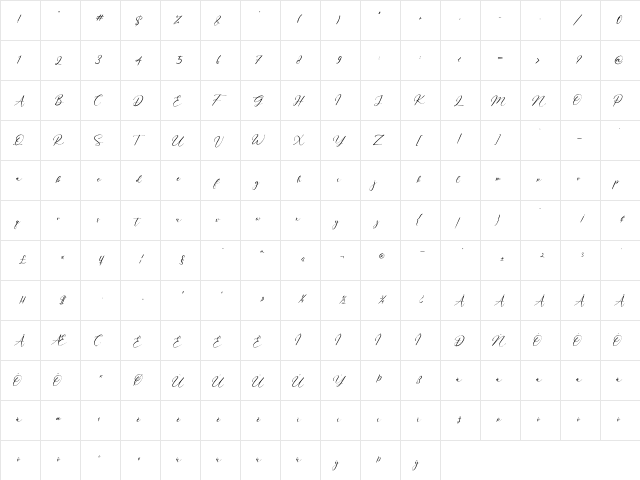
Beattrice Regular
Design Context for Beattrice Typeface
Beattrice is a composed and adaptable typeface that performs quietly and consistently across a wide range of design contexts.